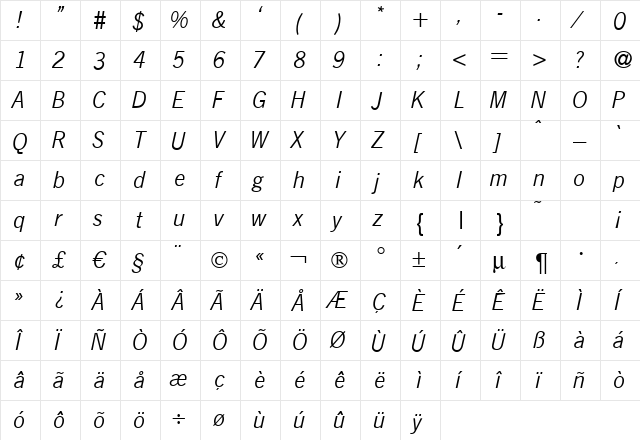
N691-Sans Italic
Design Context for N691-Sans Typeface
N691-Sans takes a measured approach to typography — its balanced proportions and neutral character make it a reliable workhorse for both digital and print work. The dynamic lean of this cut emphasises speed and emphasis in any layout.